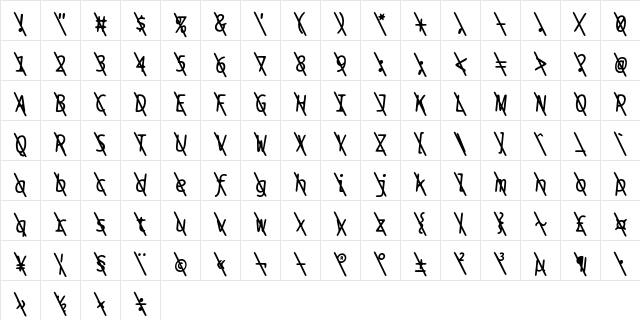
BPtypewriteSlashed Italic
Italic · George Triantafyllakos George Triantafyllakos ·
Design Context for BPtypewriteSlashed Typeface
BPtypewriteSlashed is a composed and adaptable typeface that performs quietly and consistently across a wide range of design contexts. The slanted form adds forward momentum and visual energy.